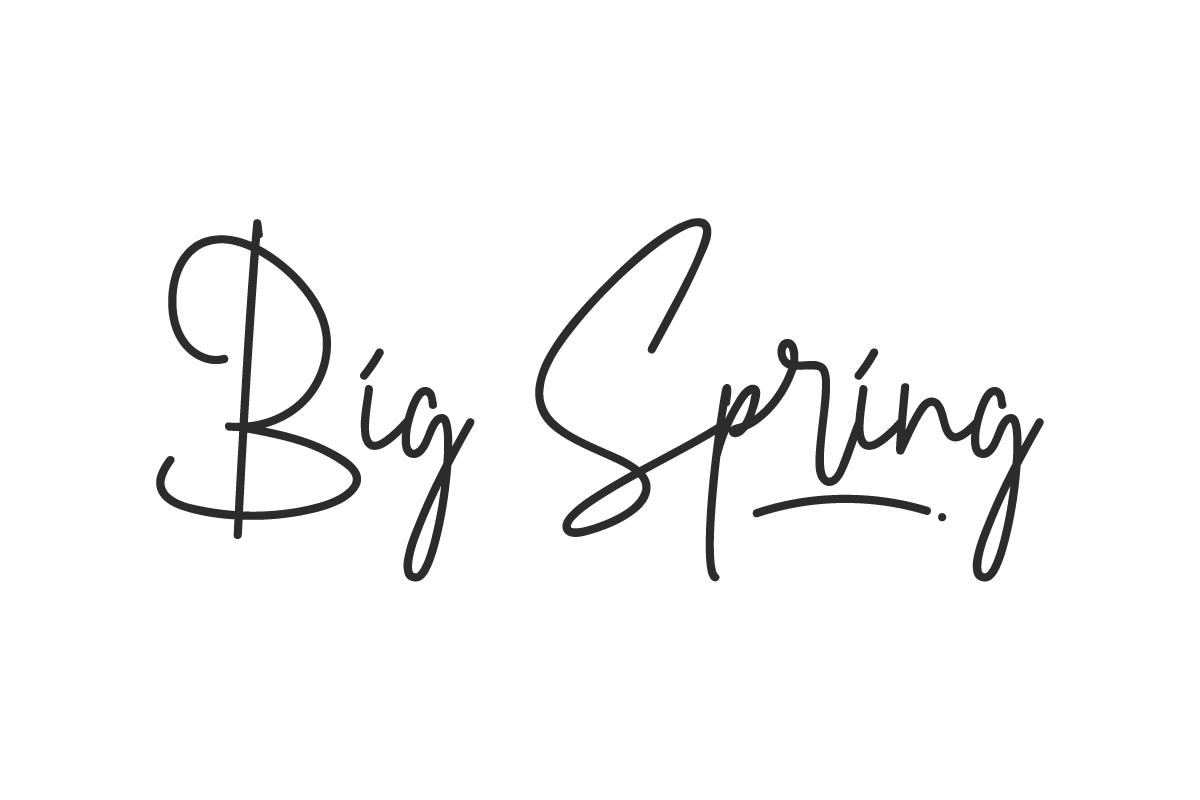
Qrowy Magical Script Font is a Quirky Handwritten Font, suitable for any projects such as: logos, branding projects, homeware designs, product packaging, mugs, quotes, posters, shopping bags, t-shirts, book covers, name card, invitation cards, greeting cards, label, photography, watermark, special events, and all your other lovely projects that need a beautiful script taste.